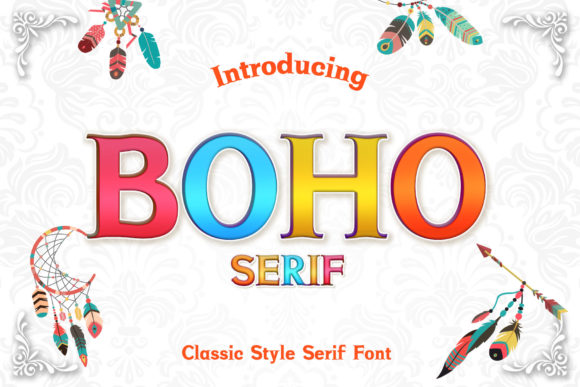
The Boho Font: A Bold and Chunky Serif to Elevate Your Designs
I’ll never forget the moment I stumbled upon the Boho font. I was working on a project for a client who wanted a bold, eye-catching title for their boutique’s branding. I had spent hours scouring through font libraries, but nothing seemed quite right. That was until I saw Boho – a bold and chunky lettered serif font that instantly caught my attention. It was love at first sight! 💕
So, what makes Boho so special? Here are a few things I absolutely adore:
- ✨ Bold and chunky lettering that’s perfect for making a statement
- ✅ Highly versatile and can be used for a wide range of projects, from branding and advertising to crafting and DIY
- 🎉 Easy to read, even in smaller sizes, making it perfect for titles, headings, and body text
Of course, no font is perfect, and Boho does have a few quirks:
- 🤔 Limited use for body text – while it’s easy to read, Boho’s bold style can be overwhelming for longer blocks of text
- ⚠️ May not be suitable for very small sizes – while it’s still legible, the chunky lettering can become a bit fuzzy at very small sizes
A Brief Backstory: The Inspiration Behind Boho
Boho was designed with the creative hobbyist in mind. The designer wanted to create a font that was both bold and elegant, perfect for making a statement in any design. Inspired by vintage typography and modern design trends, Boho is a unique and eye-catching font that’s sure to elevate your designs.
- Q: What type of projects is Boho best suited for?
- A: Boho is highly versatile and can be used for a wide range of projects, from branding and advertising to crafting and DIY.
- Q: Is Boho available in different weights or styles?
- A: Currently, Boho is available in a single bold weight, but the designer may release additional weights or styles in the future.